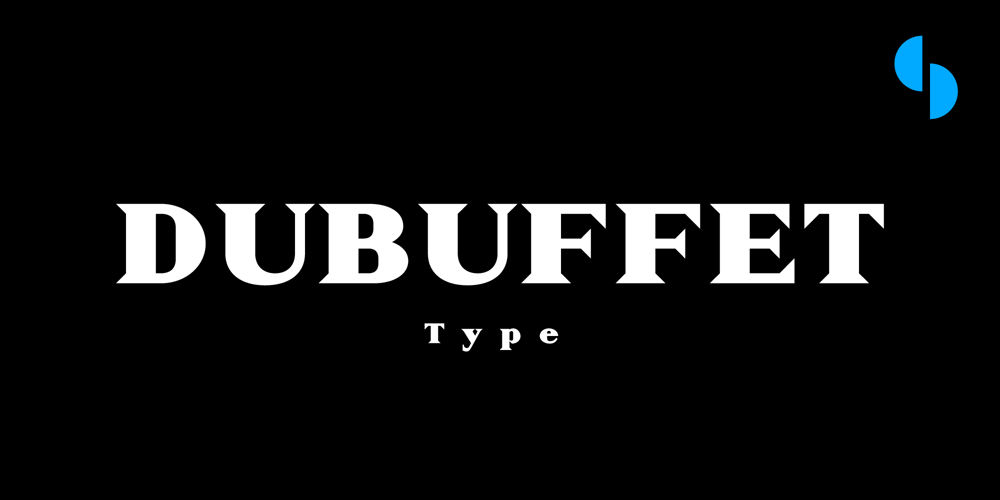
Dubuffet Font Family was designed by SAMUEL DU and published by SAMUEL DESIGN. Dubuffet contains 1 styles and family package options. The name of this font is Dubuffet, named after a famous artist. The font style is distinct and unforgettable at the same time, showing a simple temperament. The extra thick strokes bring readers a warmer visual experience. The overall shape is artistic and literary. The serif uses a sharp shape that adds a youthful, modern vibe.